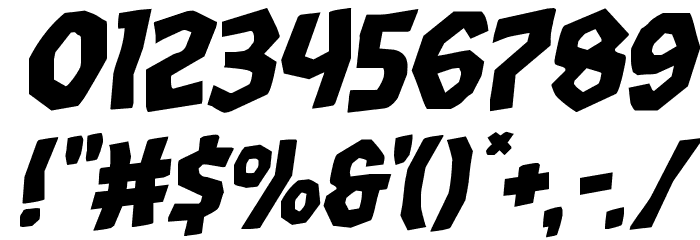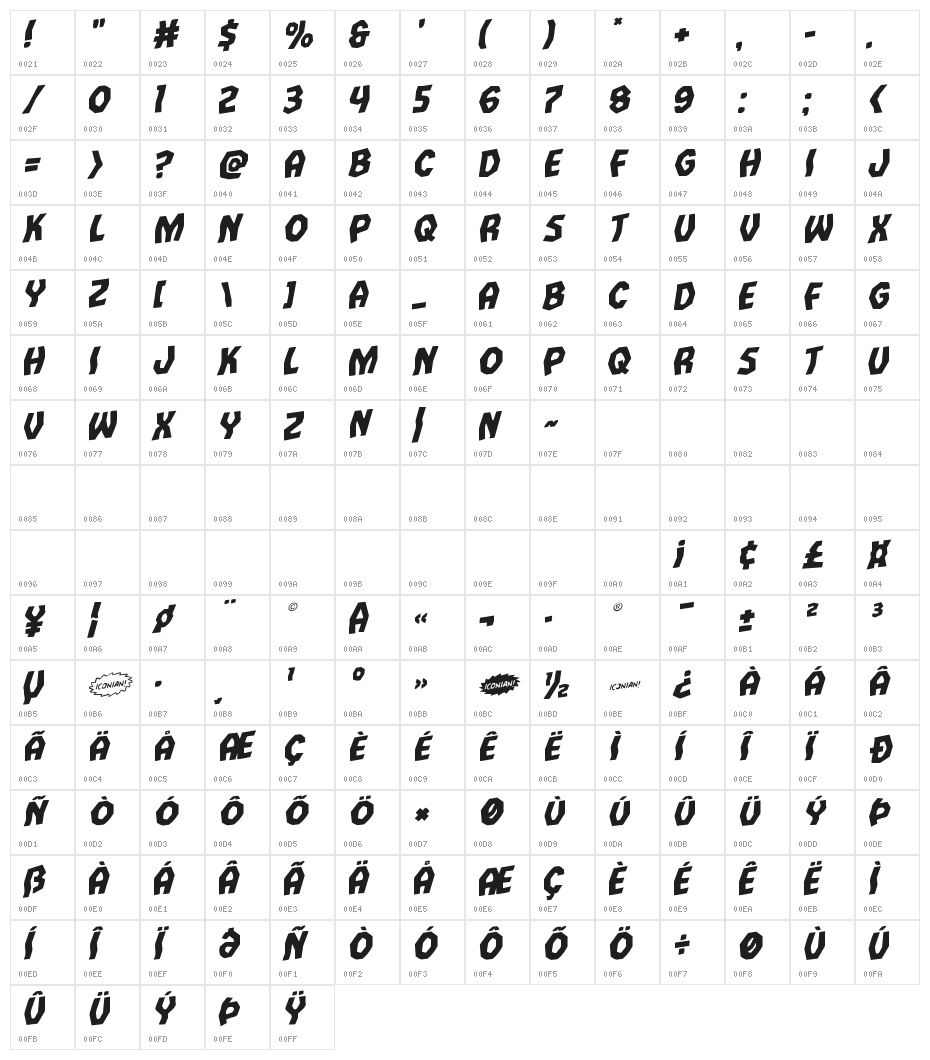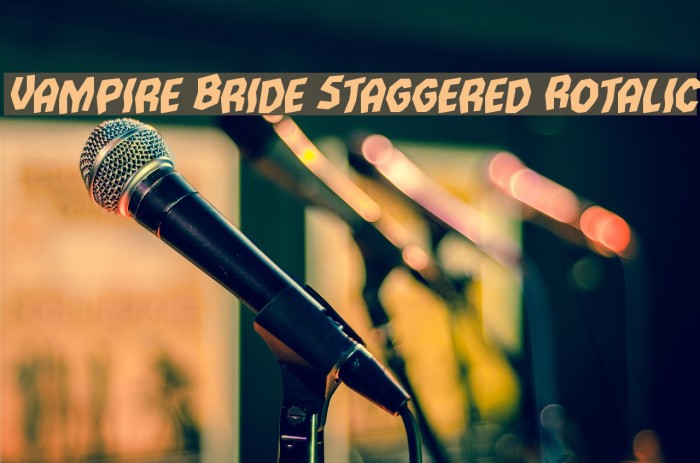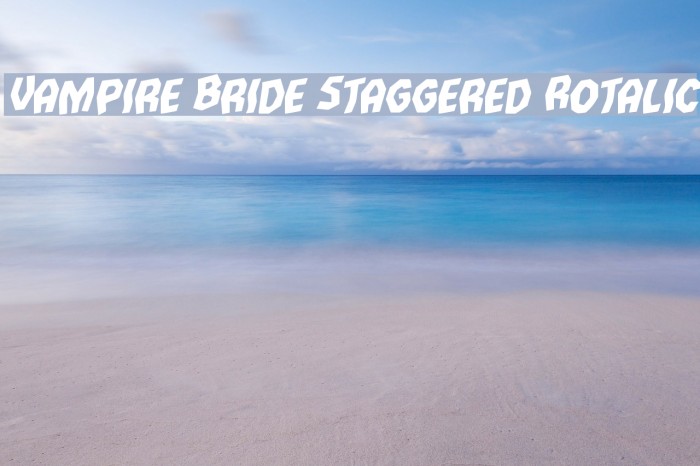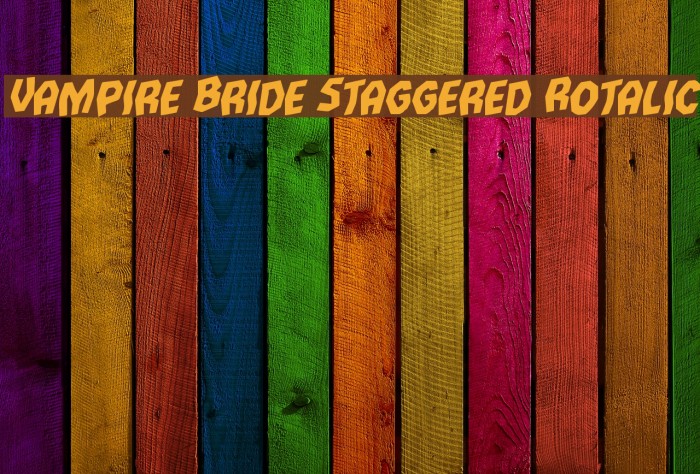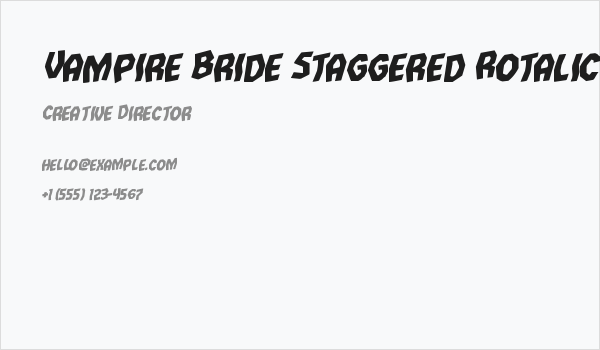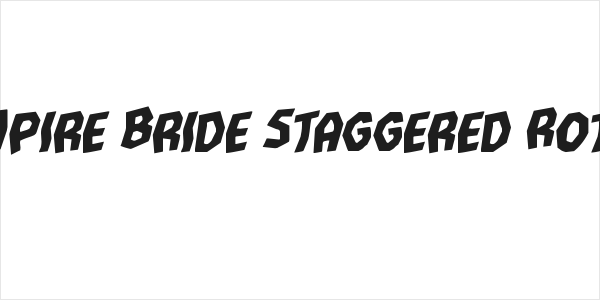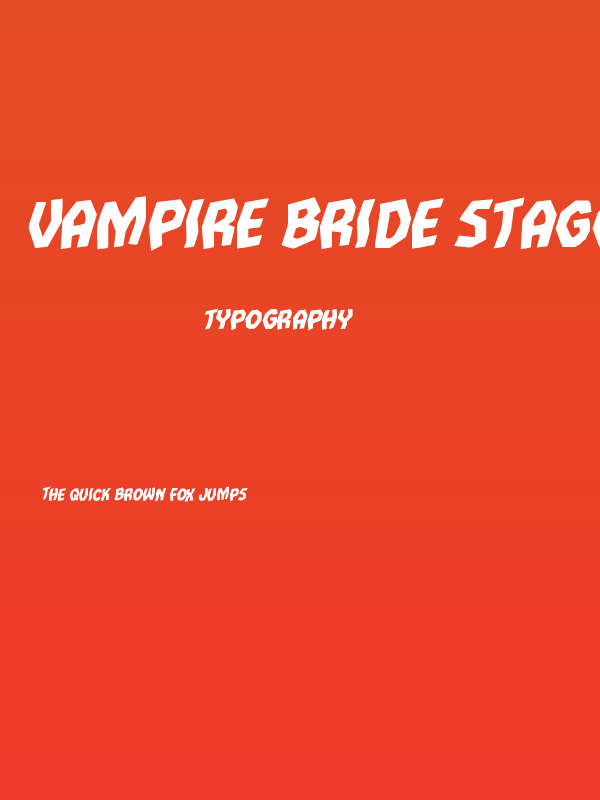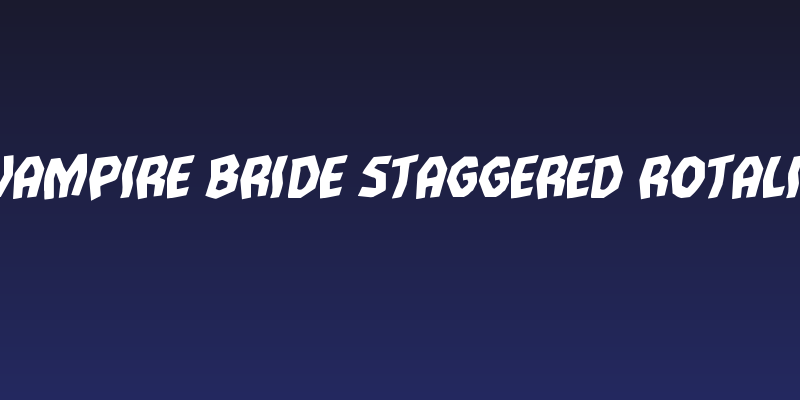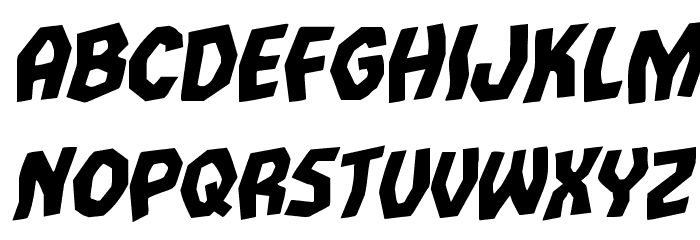
Vampire Bride Staggered Rotalic Font
Vampire Bride Staggered Rotalic Description
This font features a bold and dynamic design with a staggered, italicized appearance. The characters are angular and sharp, giving off an edgy and modern vibe. The uppercase and lowercase letters maintain a consistent style, with a slight slant that adds a sense of motion and energy. The numbers and special characters are equally bold, ensuring uniformity across all text elements. The font's unique style makes it stand out, perfect for projects that require a strong visual impact.
| Proposed Projects | Ideal for posters, album covers, video game titles, and branding that requires a bold statement. |